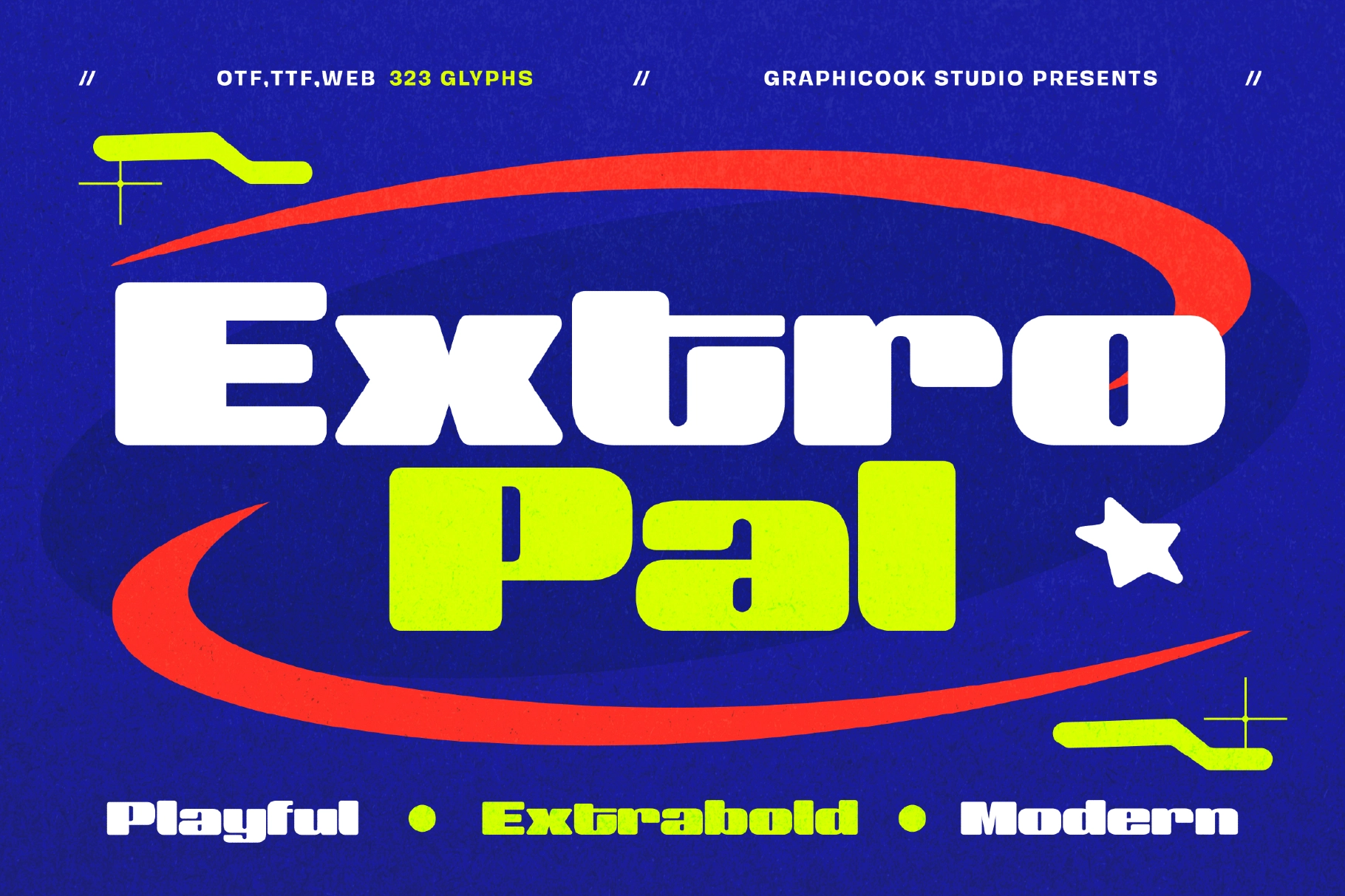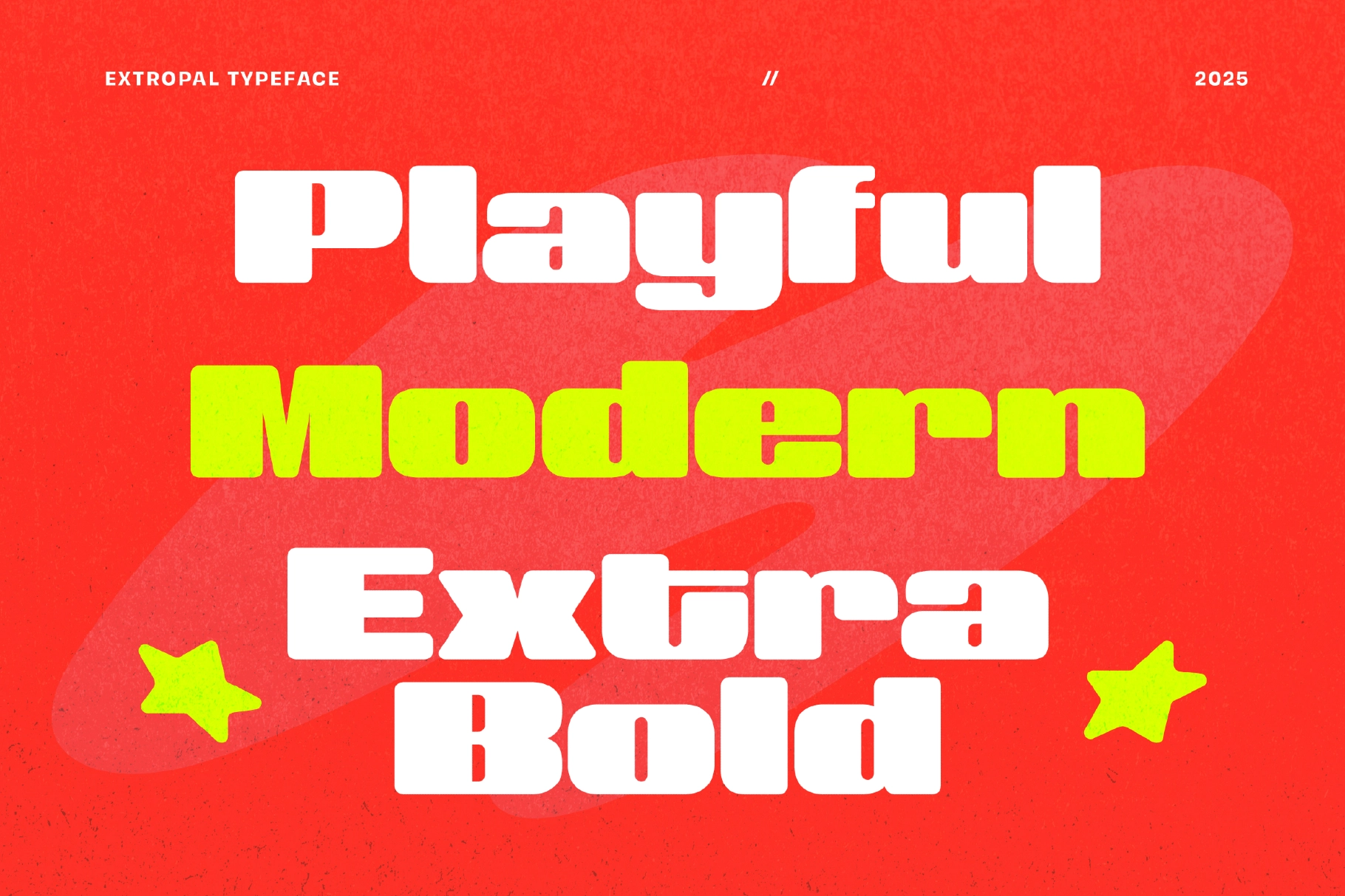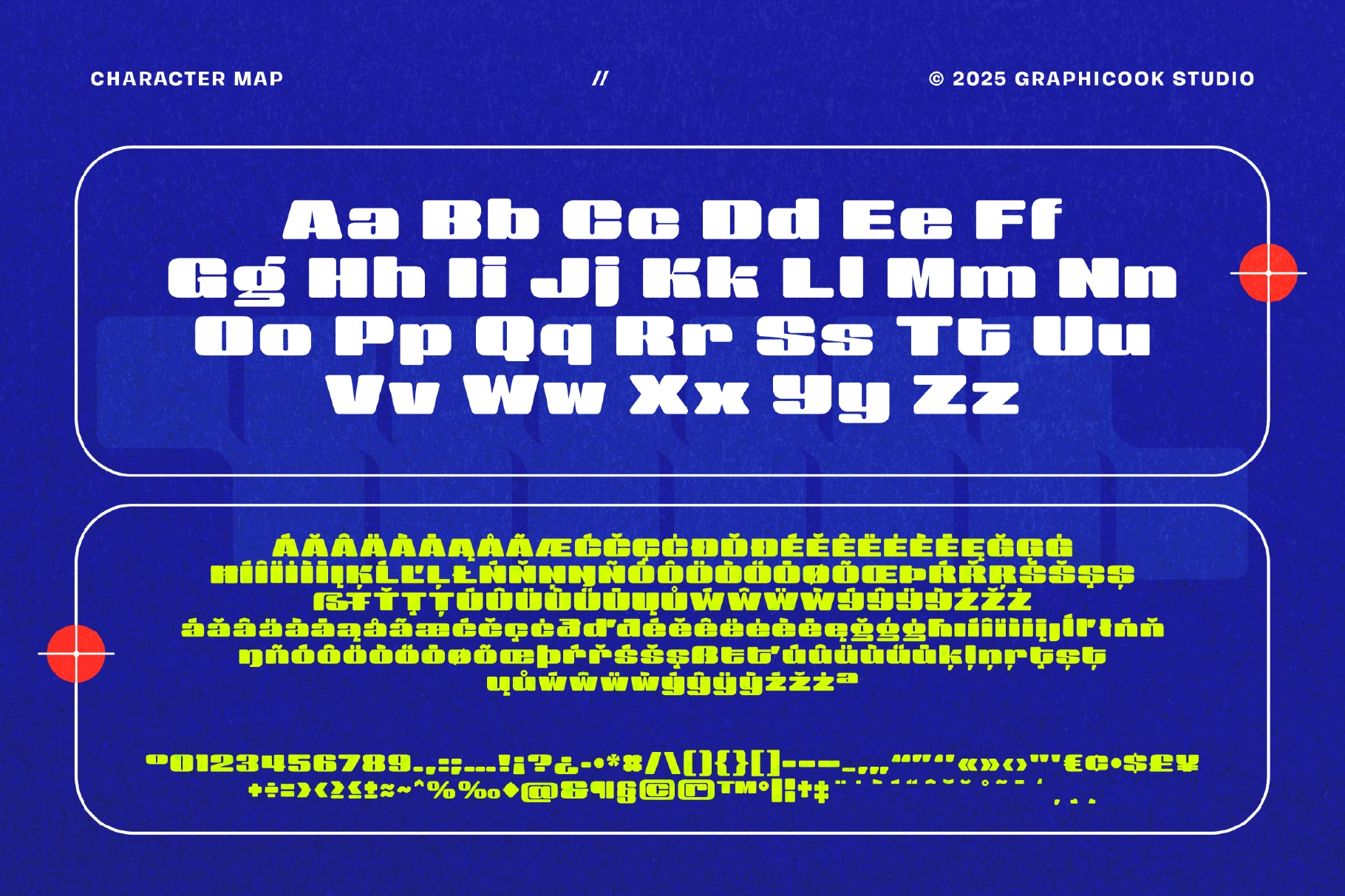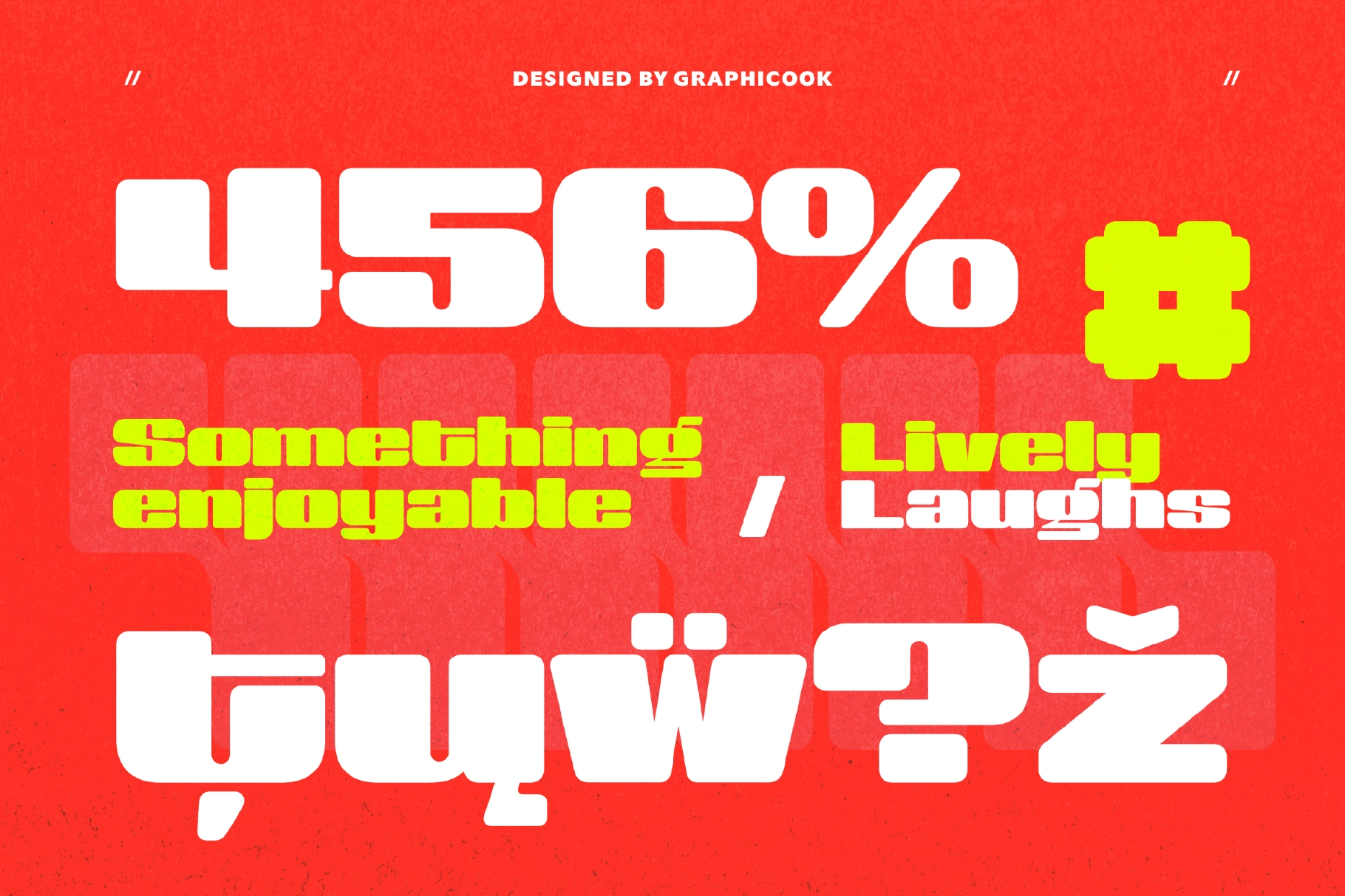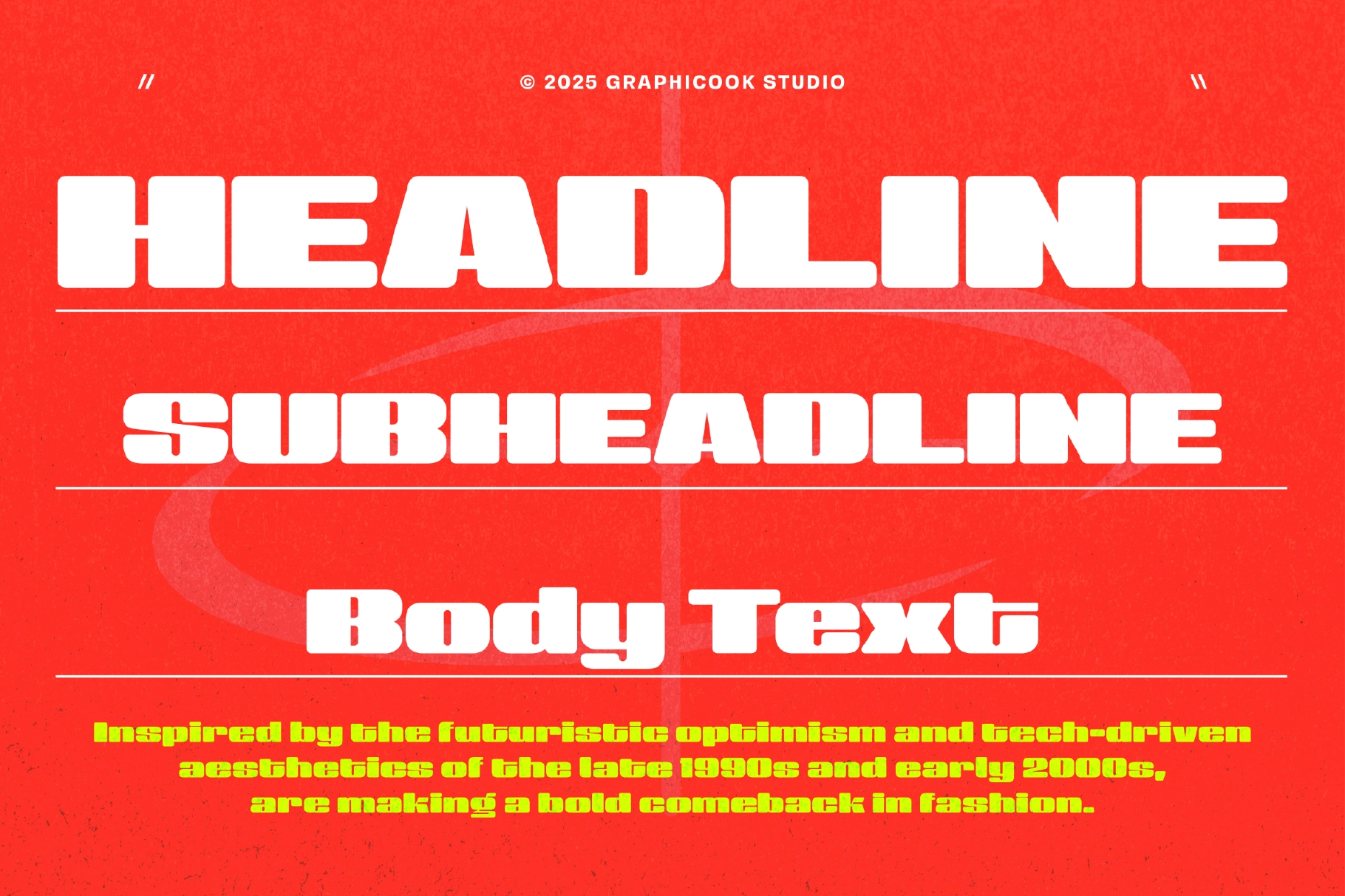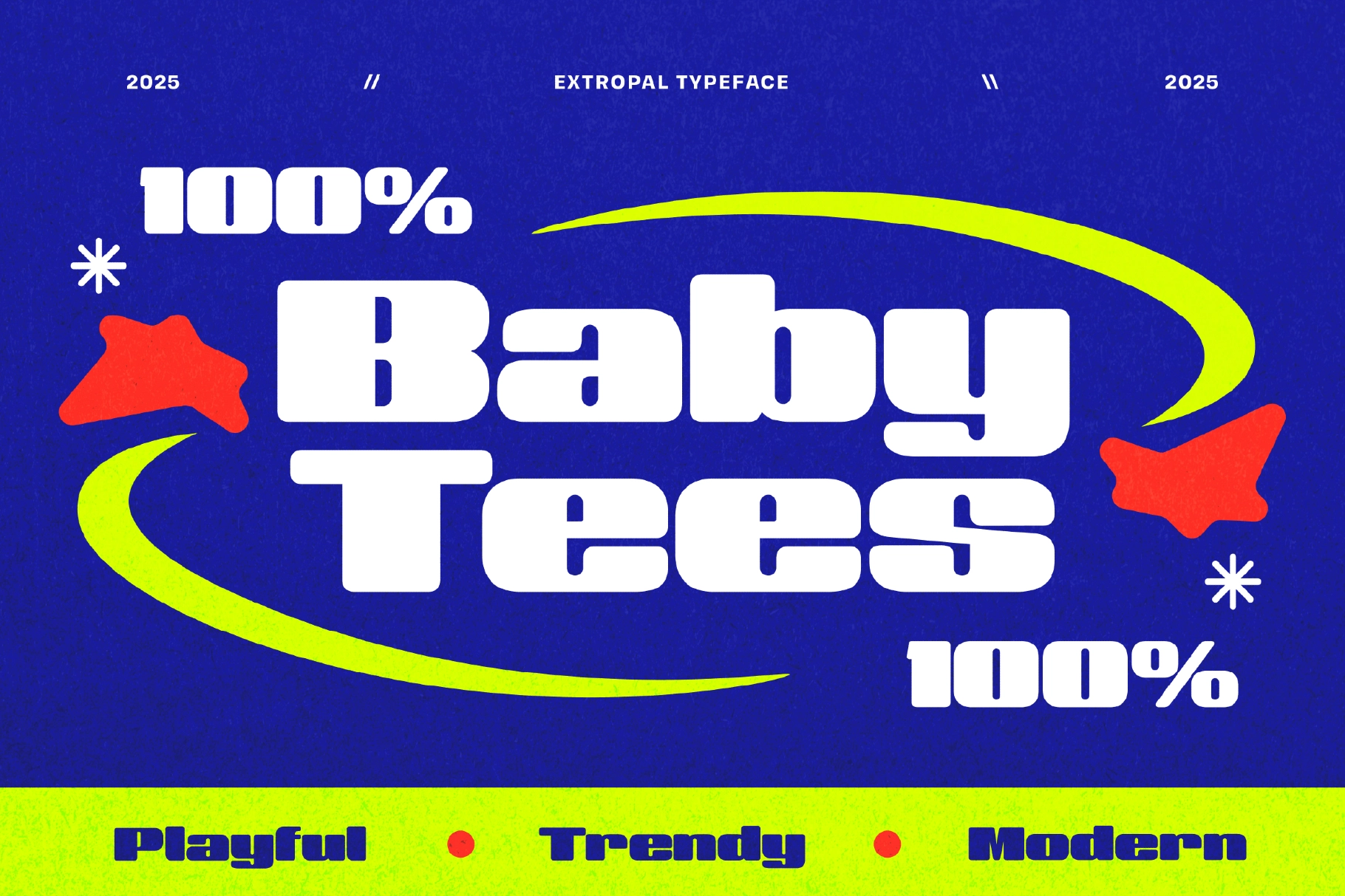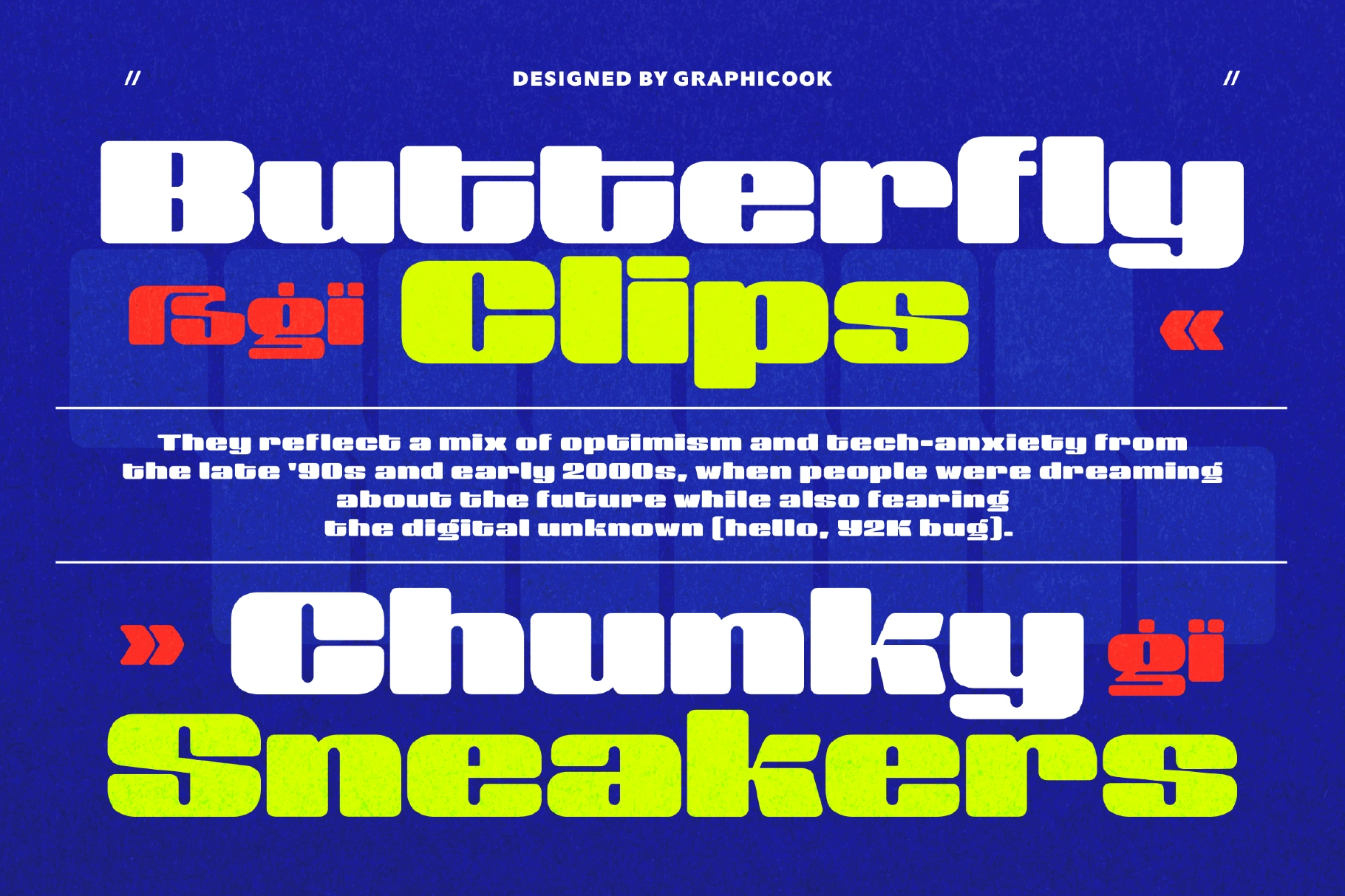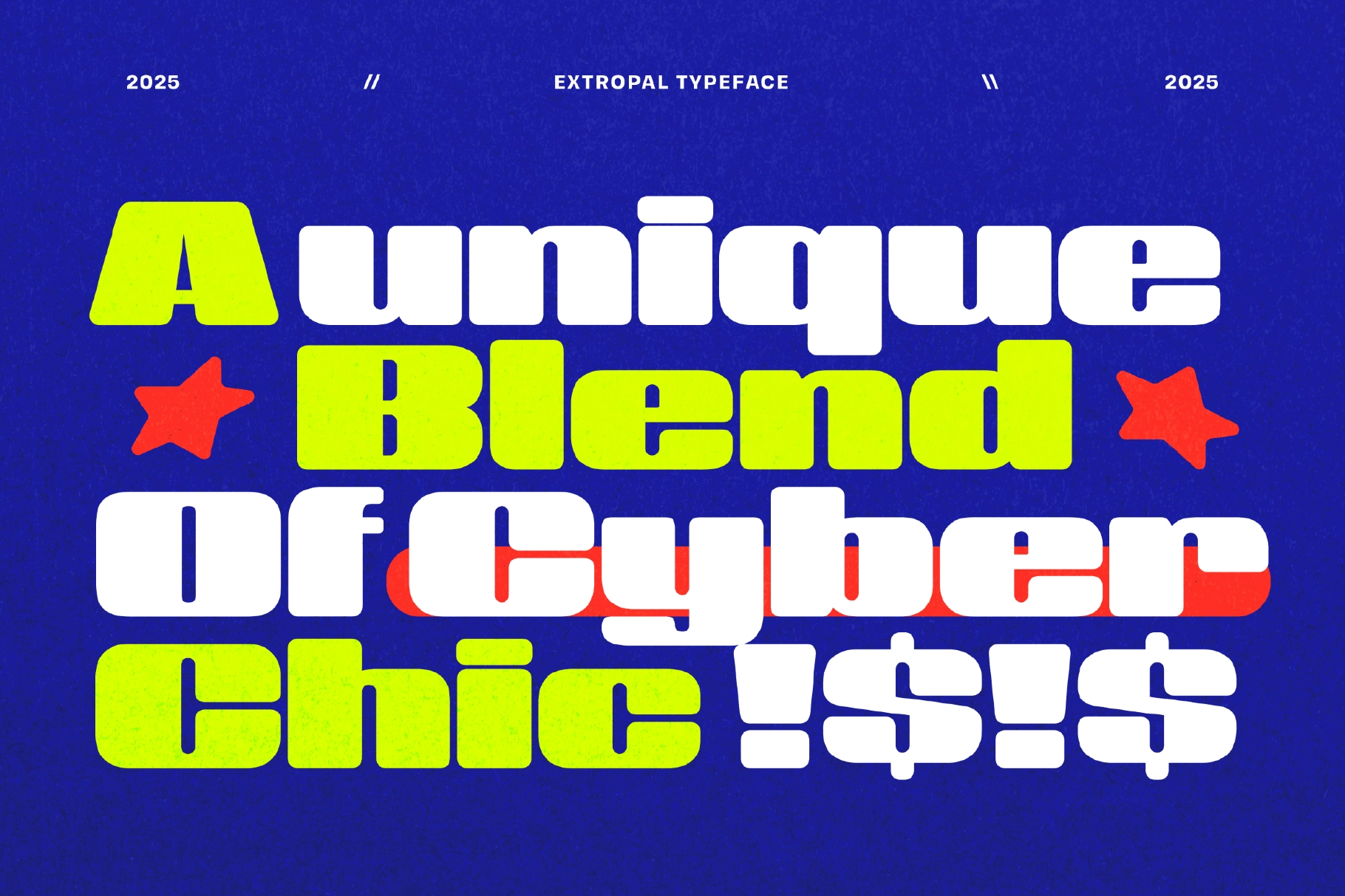
Extropal Font
Extropal
Extropal is a wide, extra-bold font blends nostalgic vibes with futuristic flair. It’s perfect for bold, expressive designs that demand attention.